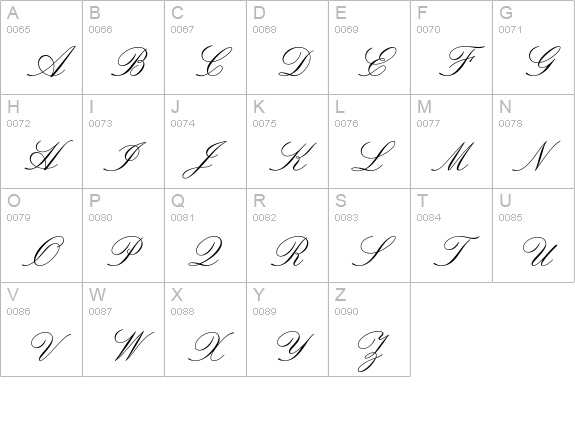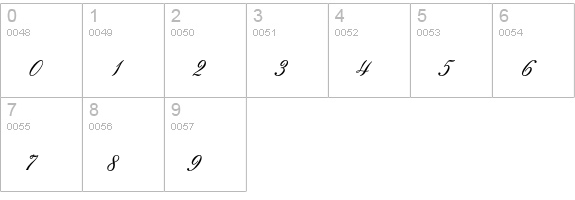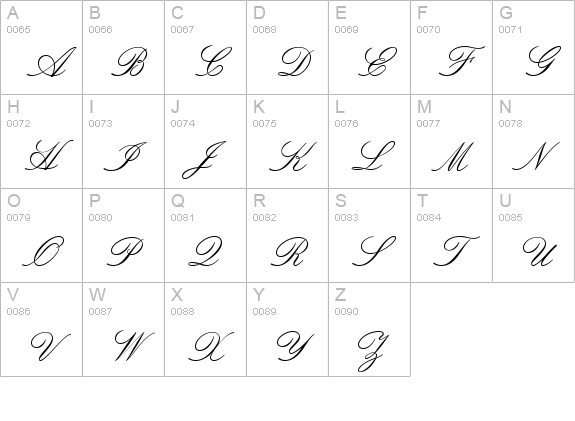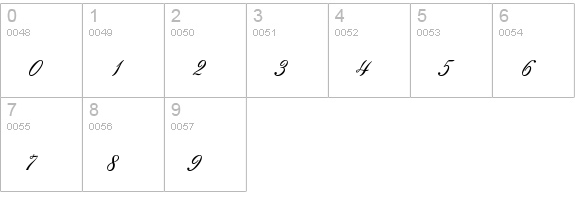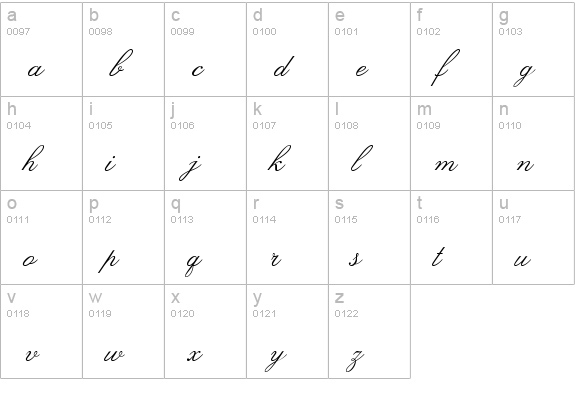
Lucia font is a versatile and elegant typeface that brings a touch of sophistication to any design project. Its flowing lines and curves exude a sense of modernity and style, making it perfect for a wide range of applications, from branding to editorial design. This beautiful font is available for free download at FontsMarket.com, making it easily accessible to designers and creatives looking to elevate their work with a touch of class. Whether you're designing a logo, creating a poster, or crafting a website, Lucia font is sure to add a touch of elegance and flair to your project. With its clean lines and timeless appeal, Lucia font is a must-have in any designer's toolkit. Download it today and see for yourself how this stunning typeface can take your designs to the next level.